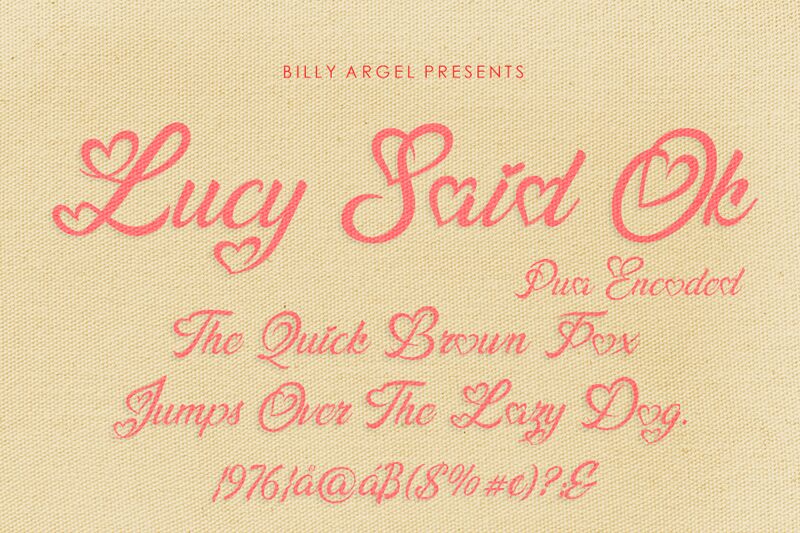
Introducing Lucy Said Ok, a light valentine calligraphy font by Billy Argel. Perfect for any holiday project, Lucy Said Ok will add just the right amount of elegance and romance to your designs. Use it to craft beautiful wedding invites, heartfelt greeting cards or romantic blog posts.